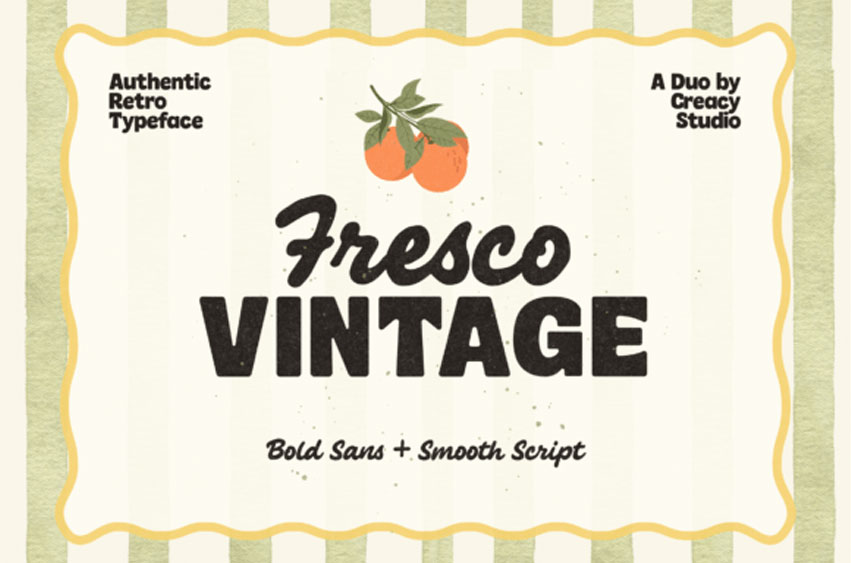
Fresco Vintage Font
Fresco Vintage Font: Immerse yourself in the world of nostalgia, where the allure of timeless food labels and retro packaging comes to life through Fresco Vintage.
This dynamic duo typeface is a captivating creation by Creacy Studio, encompassing both a bold sans and smooth script. Drawing inspiration from vintage grocery signage, coastal eateries, and mid-century food ads, Fresco Vintage seamlessly marries the playful rhythm of script with the weighty assertion of bold sans, evoking a genuine retro feel.
Fresco Vintage Sans is a boldly designed, geometric, and subtly textured sans serif font, specifically tailored to create striking headlines and memorable packaging. Adding to its charm is the Fresco Vintage Script. An effortlessly smooth, interconnected script that embodies a retro spirit, it’s perfect for branding gestures, memorable quotes, and enticing taglines.
Fresco Vintage is fully equipped with everything you need: uppercase and lowercase letters, numbers, and punctuation, plus extensive multilingual support for Western and Central European languages. The seamless pairing between Sans and Script, along with a retro-inspired texture, ensures an authentically vintage look.
Fresco Vintage is your go-to choice for retro packaging designs, whether it’s canned goods, restaurant menus, or juice packets. It’s a perfect fit for café and restaurant branding, vintage posters or social club flyers, and summertime product labels. Not to mention, it brings a playful charm to social media templates.
Embrace the vintage charm with Fresco Vintage, where the past meets the present.